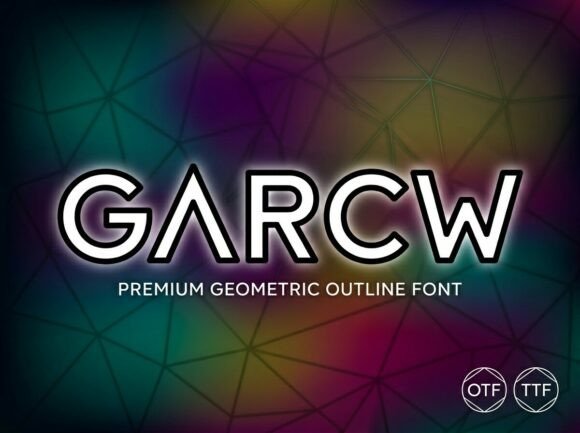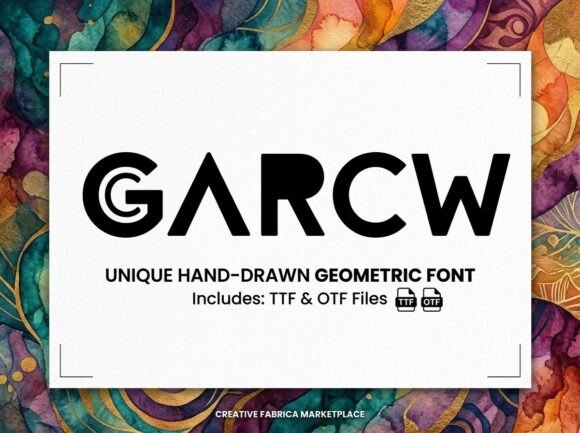
Introducing Garcw Font: The Ultimate Decorative Display Font
Are you tired of using the same old fonts for your designs? Look no further than Garcw Font, a stunning decorative display font that’s sure to turn heads. With its unique artistic elements and strong visual personality, this font is perfect for creators who want to break away from the ordinary and make a statement.
What Makes Garcw Font Special?
Garcw Font is a versatile font that’s designed to be the center of attention. Its bold and eye-catching design makes it perfect for a variety of applications, including bold headlines, artistic logos, and creative packaging. Whether you’re a designer, craftsperson, or DIY enthusiast, this font is sure to elevate your work to the next level.
Before making a purchase, it’s essential to note that Garcw Font is an ALL-CAPS (Uppercase Only) display typeface. This means that it does not include lowercase letters. The font is specifically designed for high-impact headlines, logos, and decorative initials where every letter is a work of art.
Use Cases for Garcw Font
So, what can you use Garcw Font for? The possibilities are endless! Here are a few ideas to get you started:
- Bold Headlines: Use Garcw Font to create eye-catching headlines that grab attention and make a statement.
- Artistic Logos: Create a unique and memorable logo for your business or brand with Garcw Font.
- Creative Packaging: Add a touch of elegance and sophistication to your product packaging with Garcw Font.
- Decorative Initials: Use Garcw Font to create beautiful decorative initials for your designs, adding a personal touch to any project.
Garcw Font offers a range of benefits for designers and crafters, including:
- Unique and Creative Designs: With Garcw Font, you’ll be able to create unique and creative designs that stand out from the crowd.
- Time-Saving: The font’s bold and eye-catching design means you can create stunning designs quickly and easily.
- Professional Finish: Garcw Font maintains a professional and polished finish, ensuring that your designs look high-end and sophisticated.
In conclusion, Garcw Font is a stunning decorative display font that’s perfect for creators who want to break away from the ordinary and make a statement. With its unique artistic elements, strong visual personality, and versatility, this font is sure to elevate your designs to the next level. Whether you’re a designer, craftsperson, or DIY enthusiast, Garcw Font is a must-have font for any creative project.